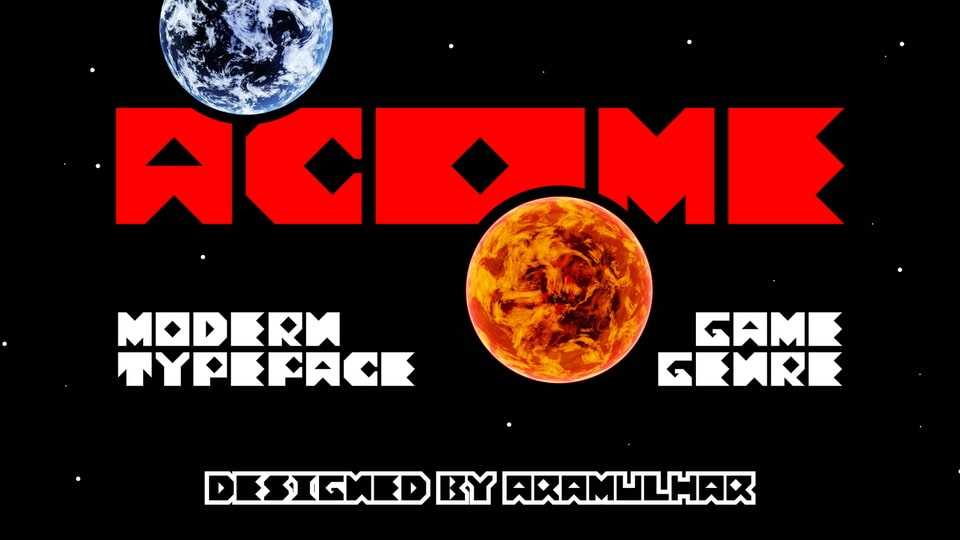
Download Acome font, a modern and bold display typeface inspired by gaming typography. With its impact look Acome font is suitable for editorial, advertising and display typography.